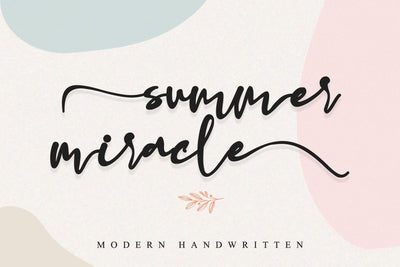
SUMMER MIRACLE
summer miracle is an incredibly modern and sweet handwritten font that will turn any design idea into a true standout! summer miracle will turn any creative idea into a true piece of art! This font is PUA encoded which means you can access all of the amazing glyphs and swashes with ease! It also features a wealth of special features including alternate glyphs and ligatures.
- Many features: Uppercase Alternate, Lowercase Alternate, Swash and Ligature
- This font is PUA encoded which means you can access all of the playful glyphs and swashes with ease! It also features a wealth of special features including alternate glyphs and ligatures.